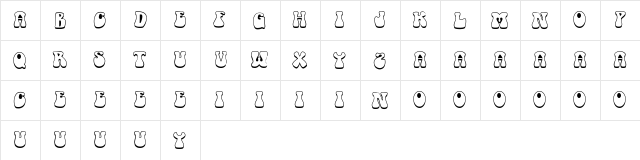
Retrotype Regular
Design Context for Retrotype Typeface
Retrotype wears its vintage influences proudly, with letterforms that recall mid-century signage, classic packaging, and nostalgia-driven design.
Font Pairing: Combine Retrotype with a simple slab or neutral sans — period-accurate companions reinforce the vintage feel without competing for attention.
Pro Tip: Use Retrotype for headlines and pull quotes rather than body copy — its personality is best appreciated in short, focused bursts.